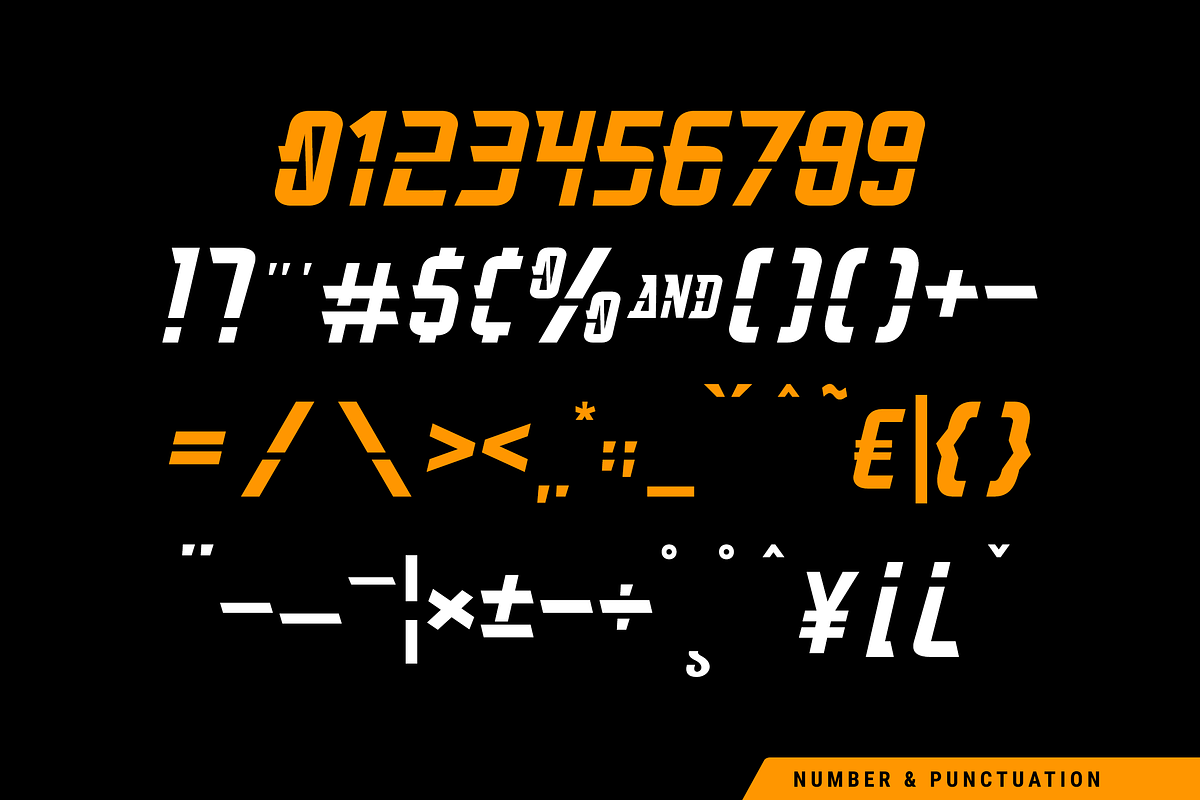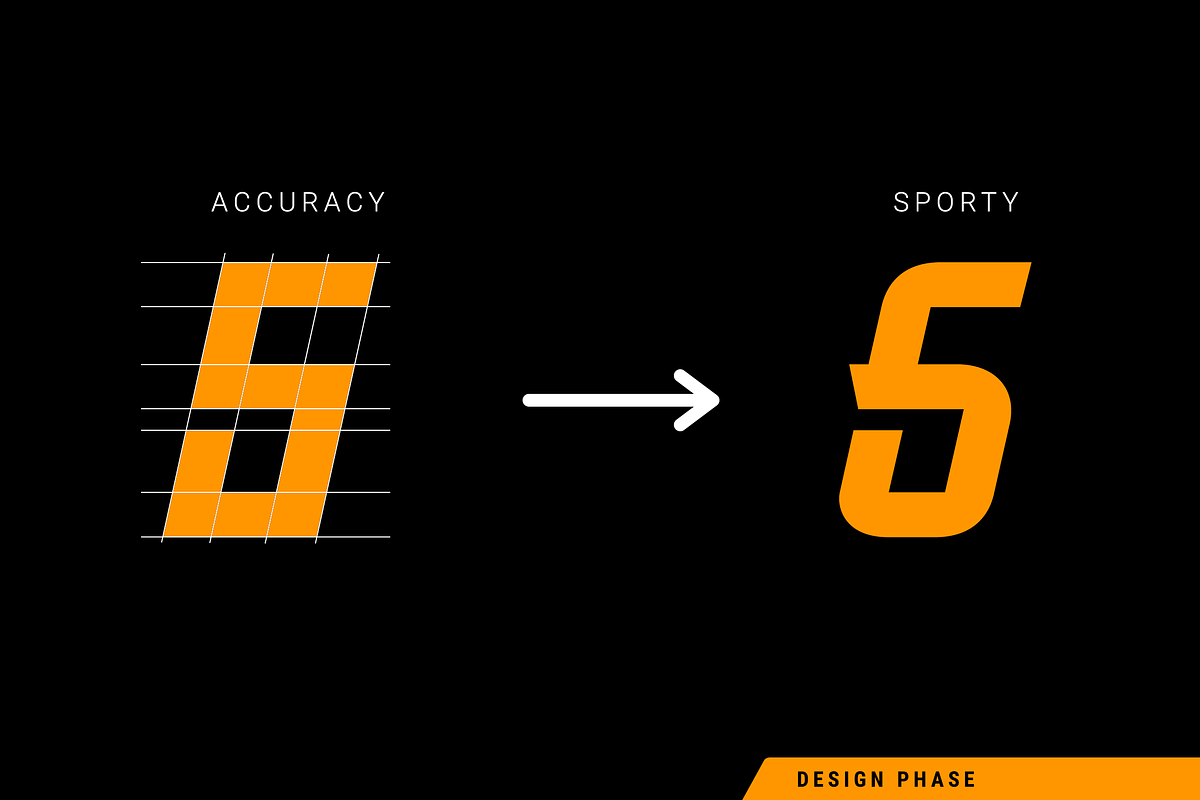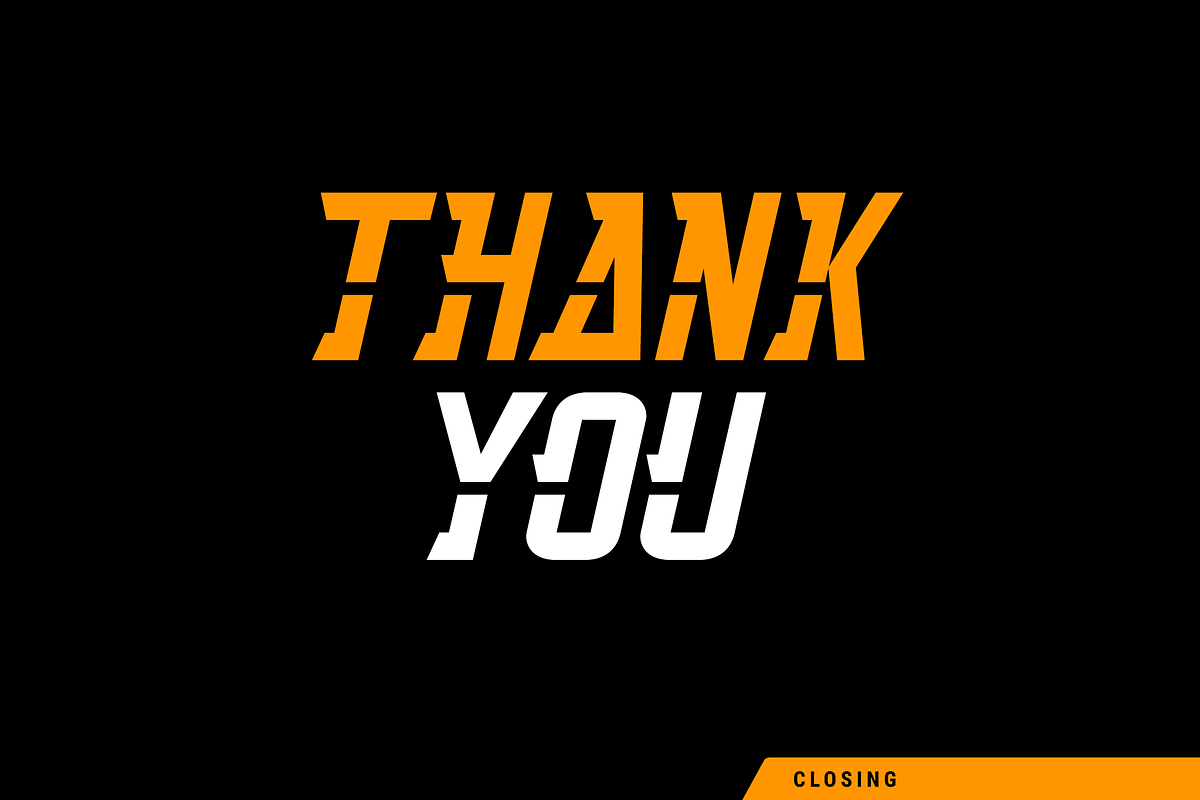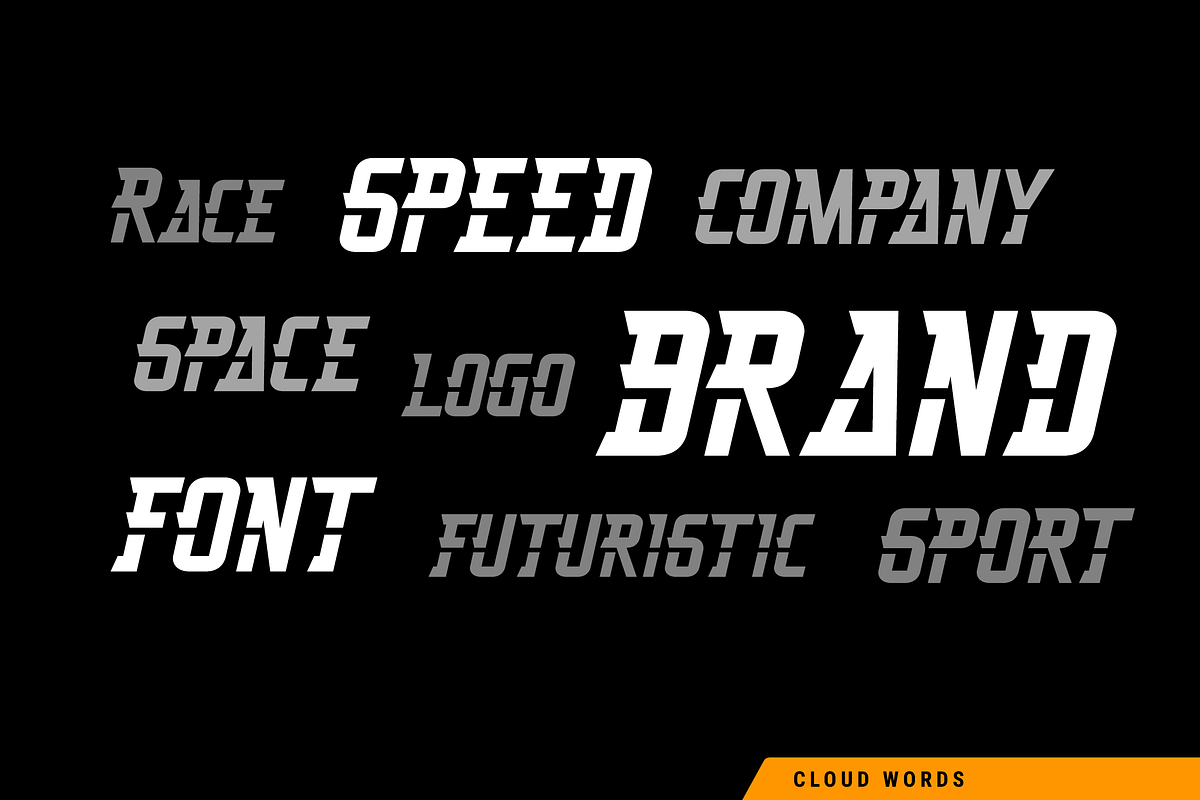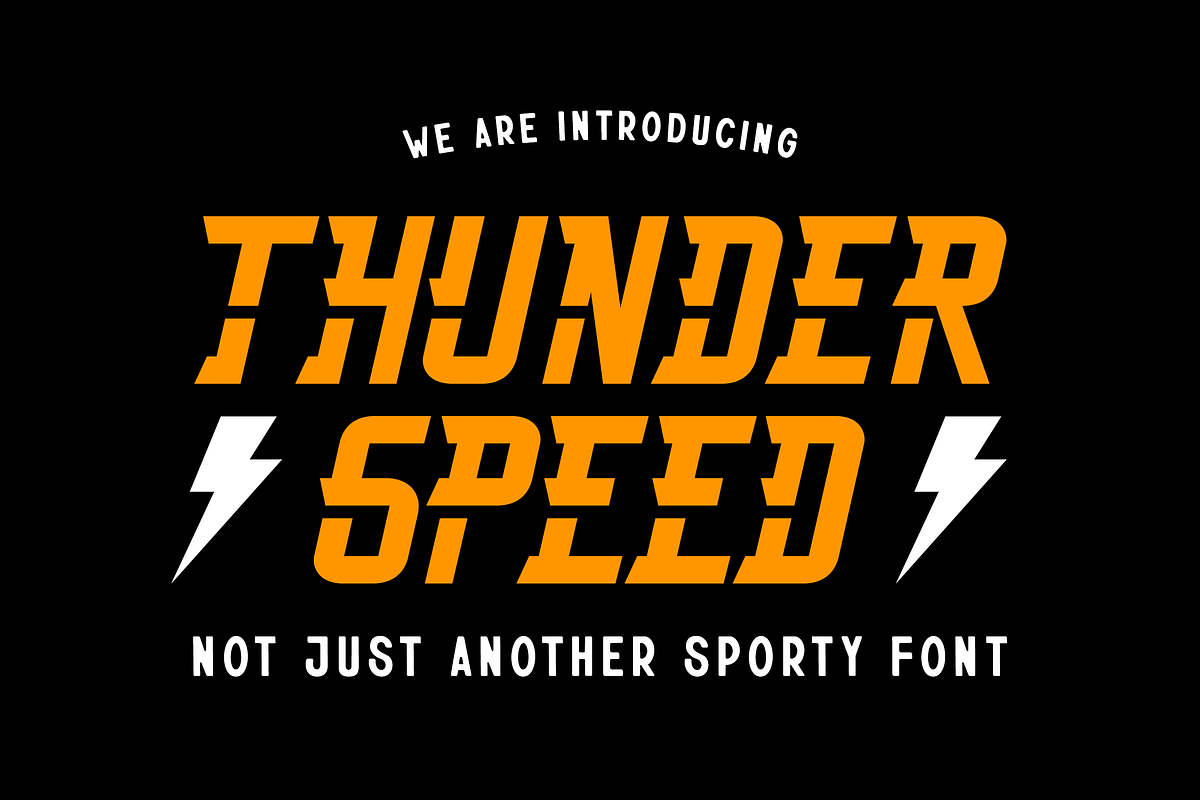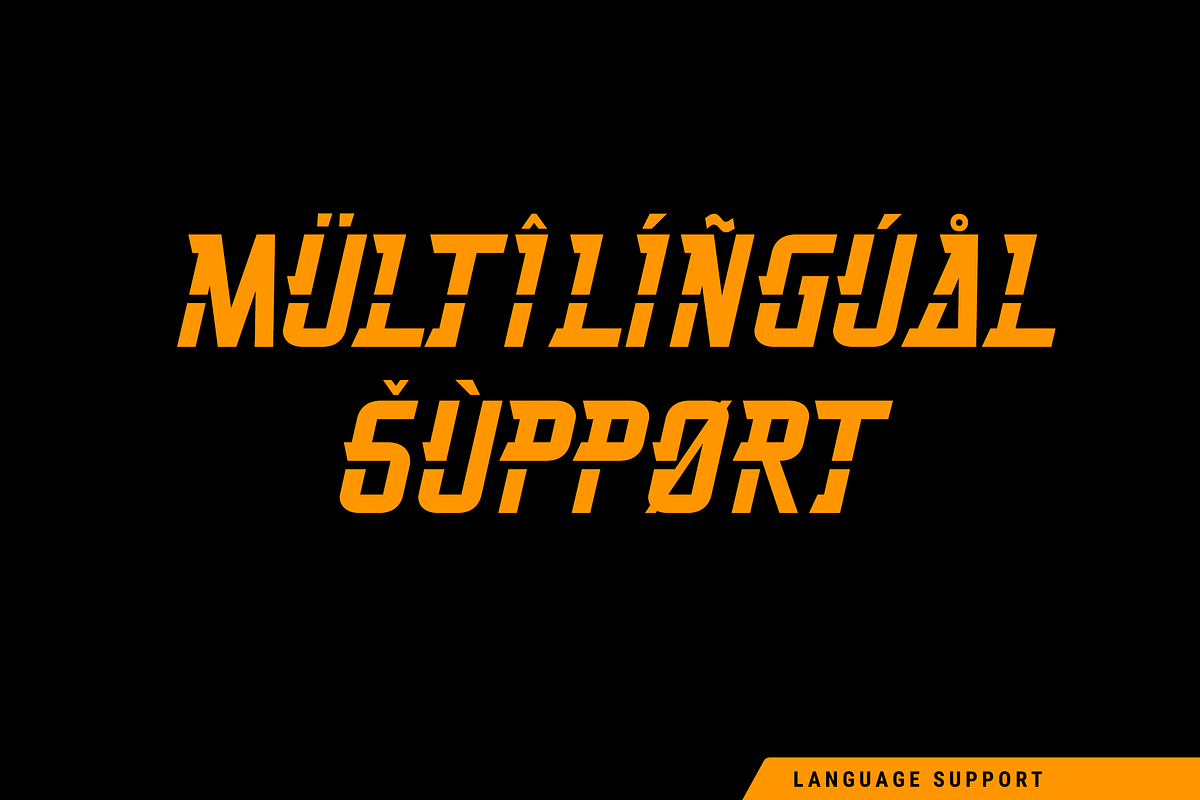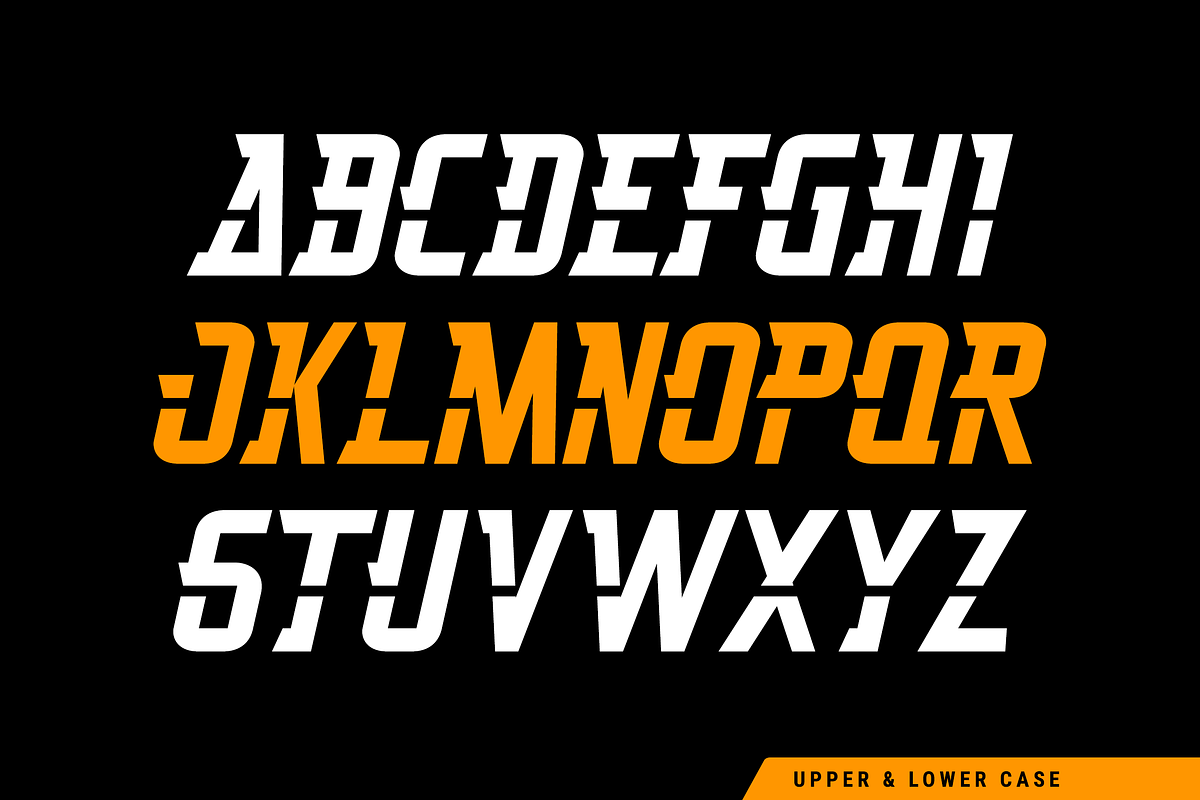
Thunderspeed | Sporty and Futuristic
Thunderspeed is a futuristic and sporty look font. It is sharp yet easy on eyes of readability. It is perfect for your branding and logo, mainly in design theme related to sports, futuristic, space, etc.
Thunderspeed features complete set of upper case and lower case with standard International characters. Of course come with the numbers and punctuations.